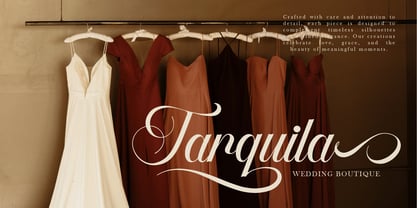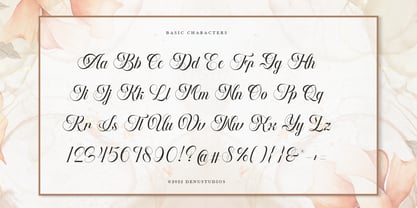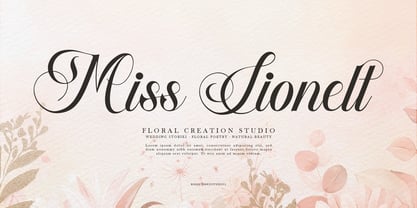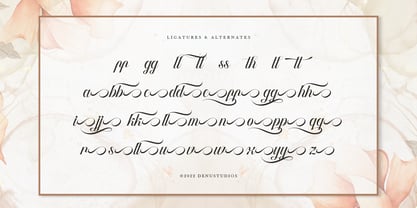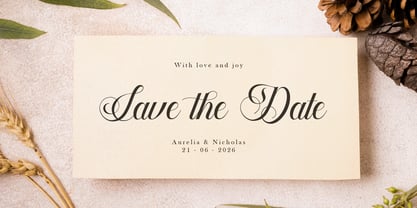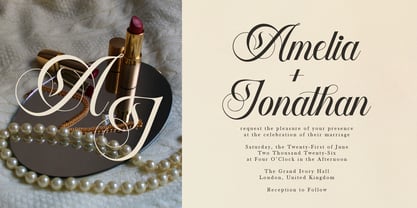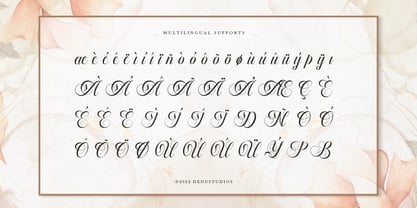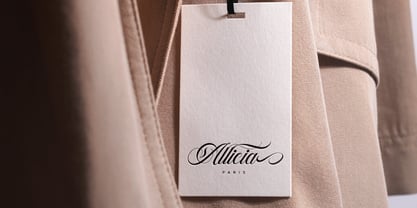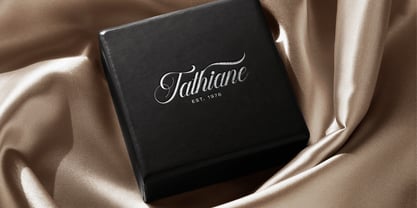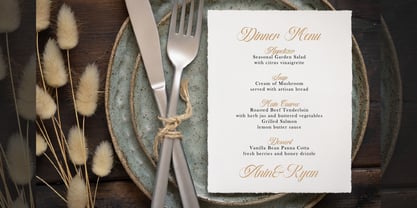
Artho Willians
par Denustudio
La famille de polices Artho Willians a été conçue par Dede Nugraha et publiée par Denustudio. Artho Willians contient 2 styles et options de package familial. En savoir plus sur cette famille
Artho Willians | Beauty Calligraphy Script, from Denustudios, suitable for any projects such as: logos, branding projects, homeware designs, product packaging, mugs, quotes, posters, shopping bags, t-shirts, book covers, name card, invitation cards, greeting cards, label, photography, watermark, special events, and all your other lovely projects that need Callighraphy a taste.